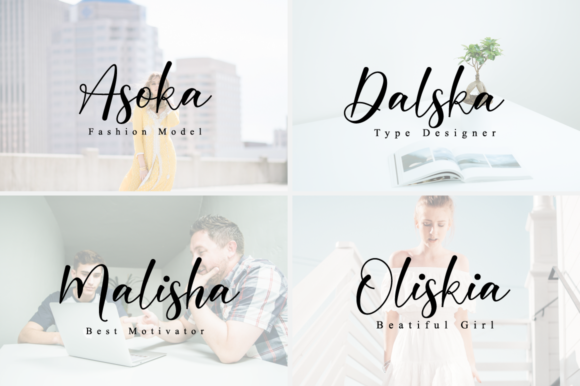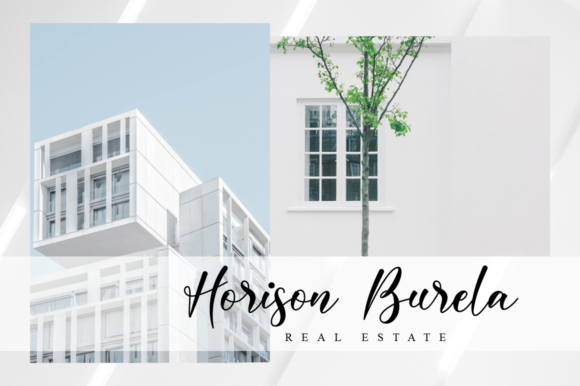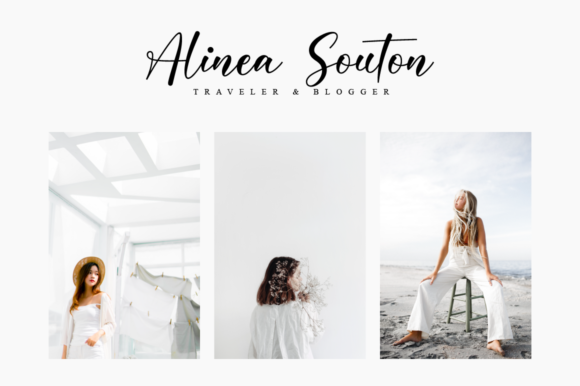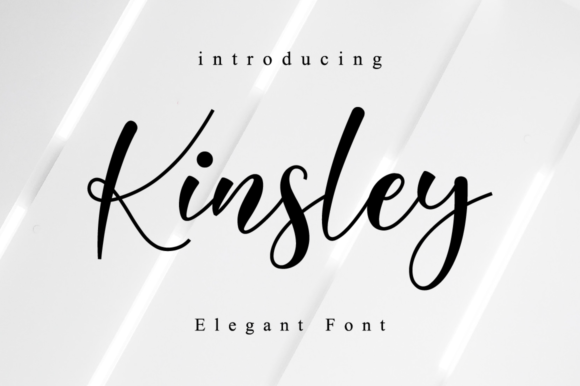
Introduction to Kinsley Script Font
Kinsley Script is a beautifully light script font with a silky smooth feel.
It will add plenty of class and character to any design project .